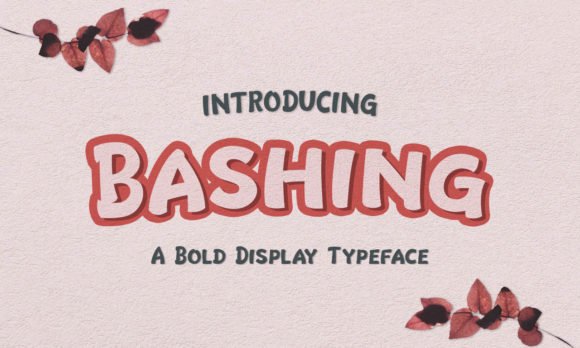
Bashing Font – Free Download Introduction to Bashing Font Bashing is a fun and thick lettered display font. 📸 Preview Gallery 6 images 📌 Product Name Bashing Font 👤 Author Typecase 📂 Category Explore ⬇️ Download Bashing Font FREE Free